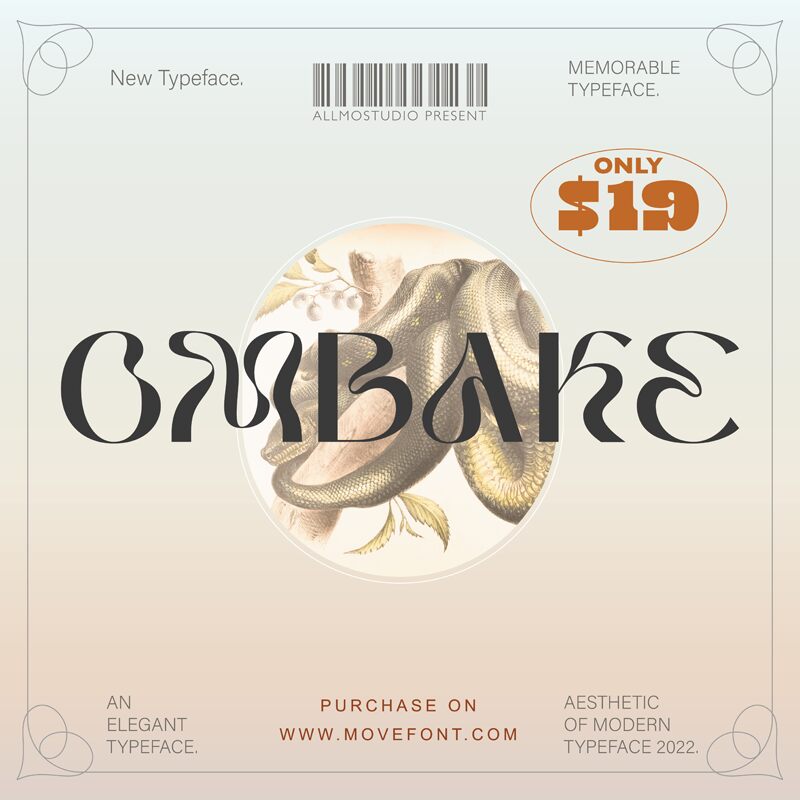
Ombake emerges as a distinctive display font, exuding an artful blend of elegance and whimsy. Crafted by the creative minds at www.movefont.com, this typeface is characterized by its fluid curvature and bold, sweeping strokes that evoke a sense of movement and dynamism. The playful yet poised appearance makes Ombake an ideal choice for branding, editorial design, and attention-grabbing headlines.
The font's aesthetic appeal lies in its balance between classic refinement and modern flair. Each character is designed with a unique twist that allows for memorable visual experiences. Whether used in large-scale displays or as an accentuating element in design compositions, Ombake's versatile style adapts to convey sophistication with a touch of avant-garde.
In the realm of creative projects, Ombake's potential is vast. Its captivating presence can transform packaging designs into works of art or give promotional materials a standout quality that resonates with audiences. For designers seeking to infuse their work with personality while maintaining readability, Ombake stands out as an inspired choice – ready to elevate any project it graces.
Ombake